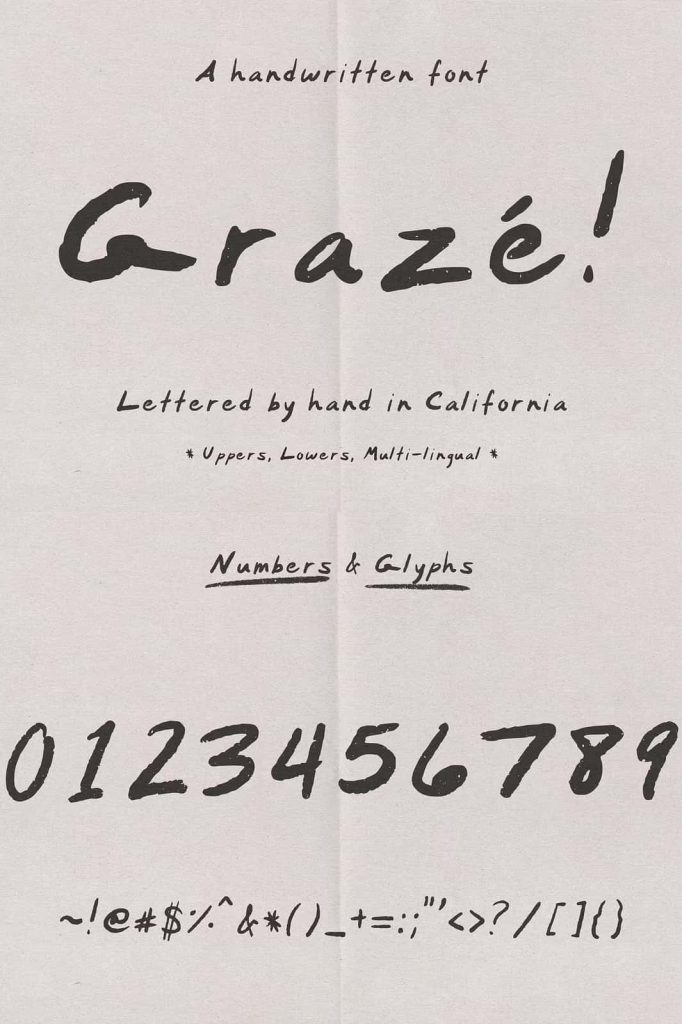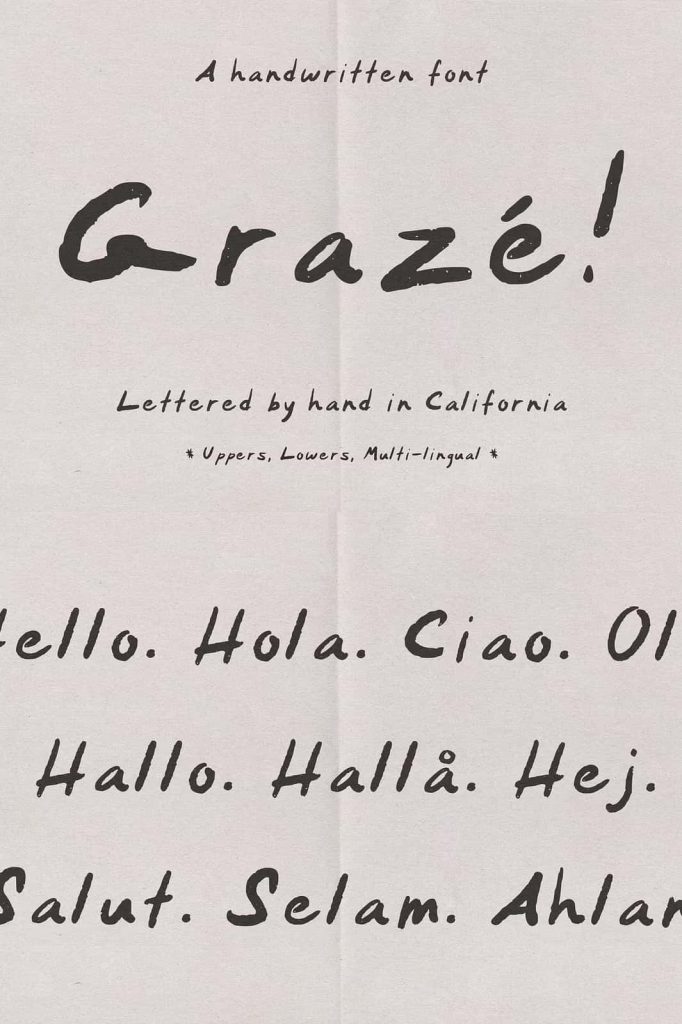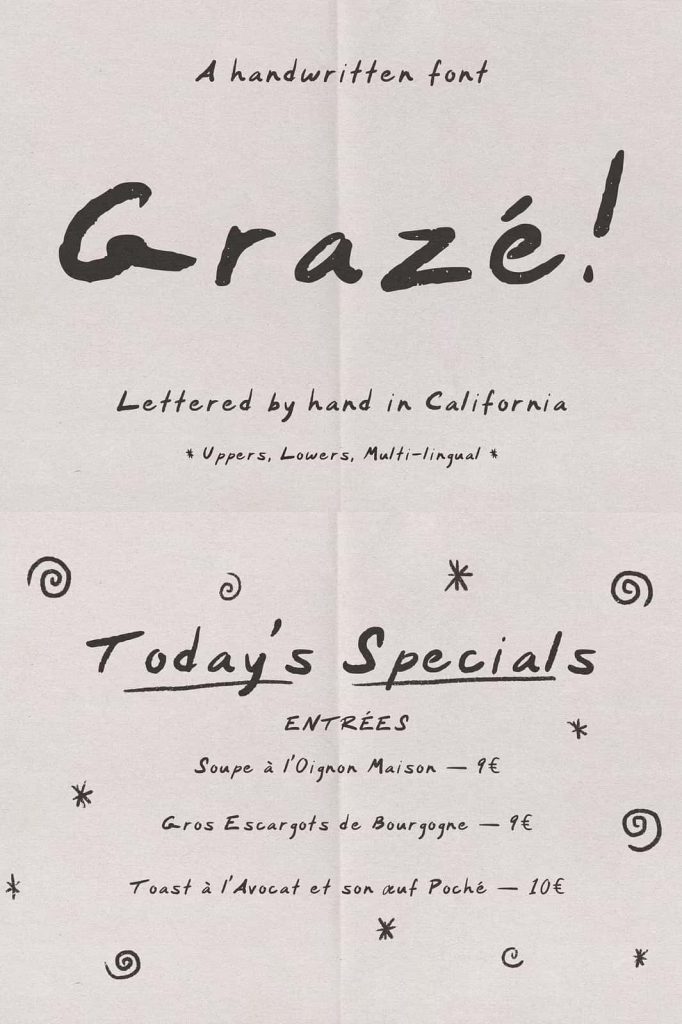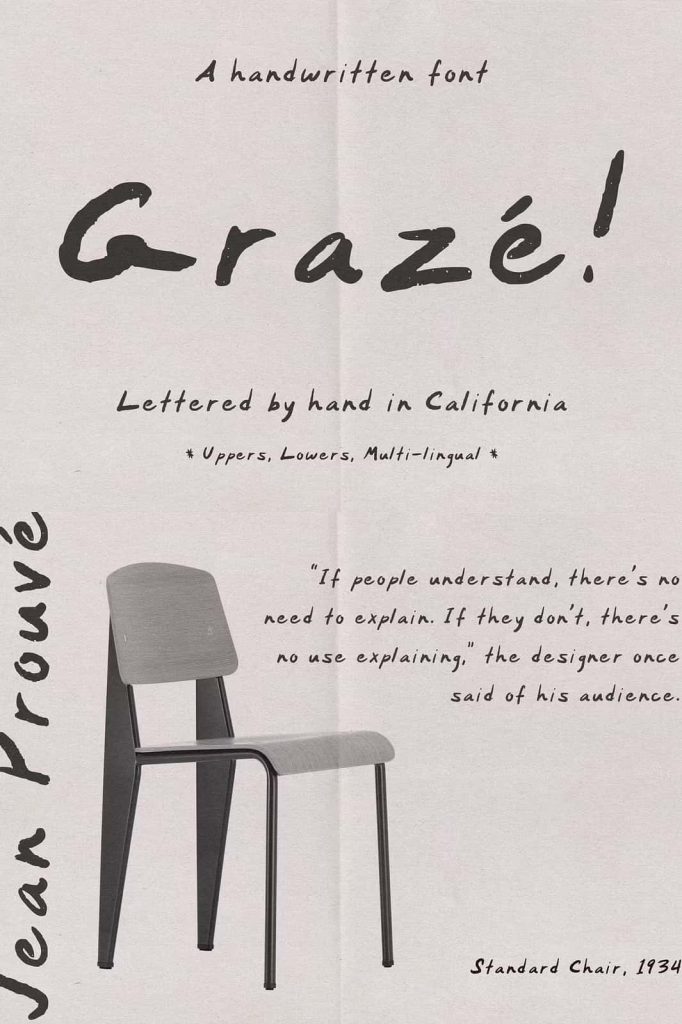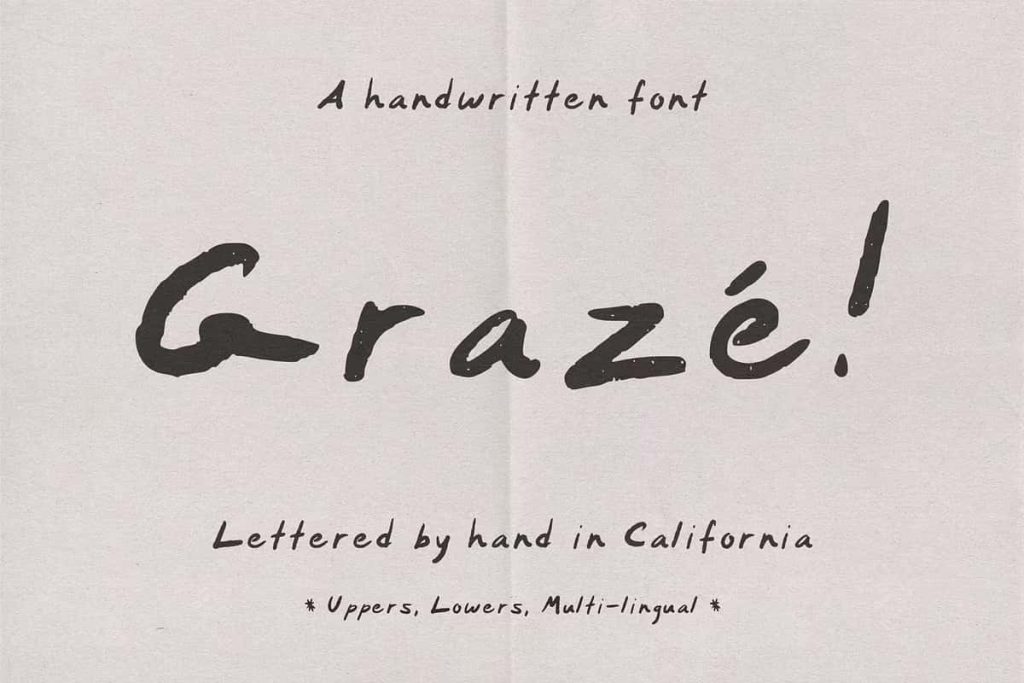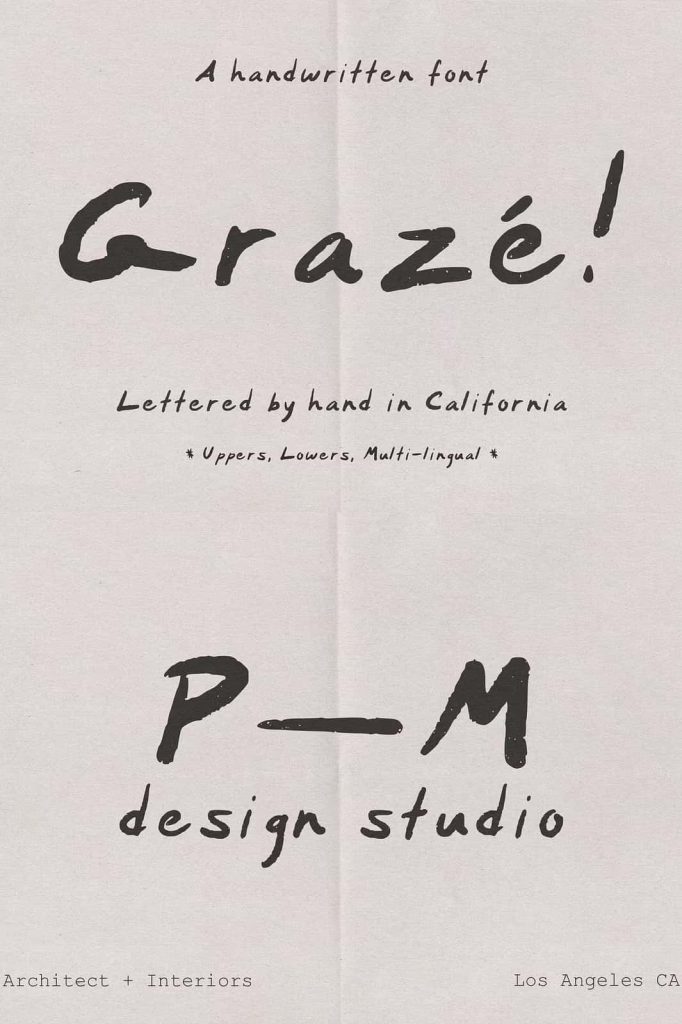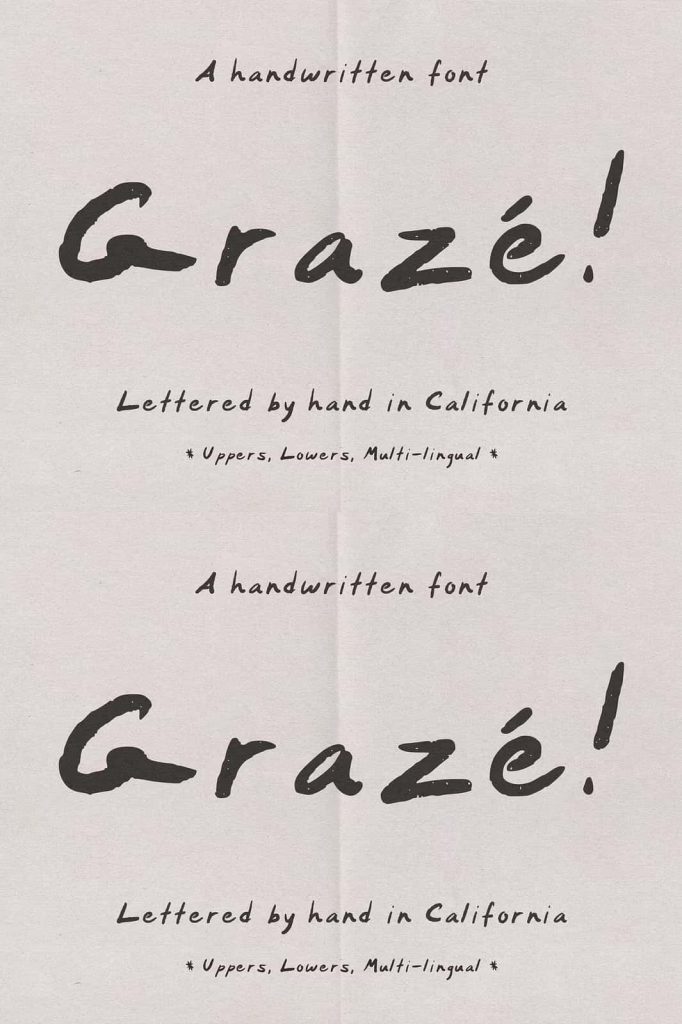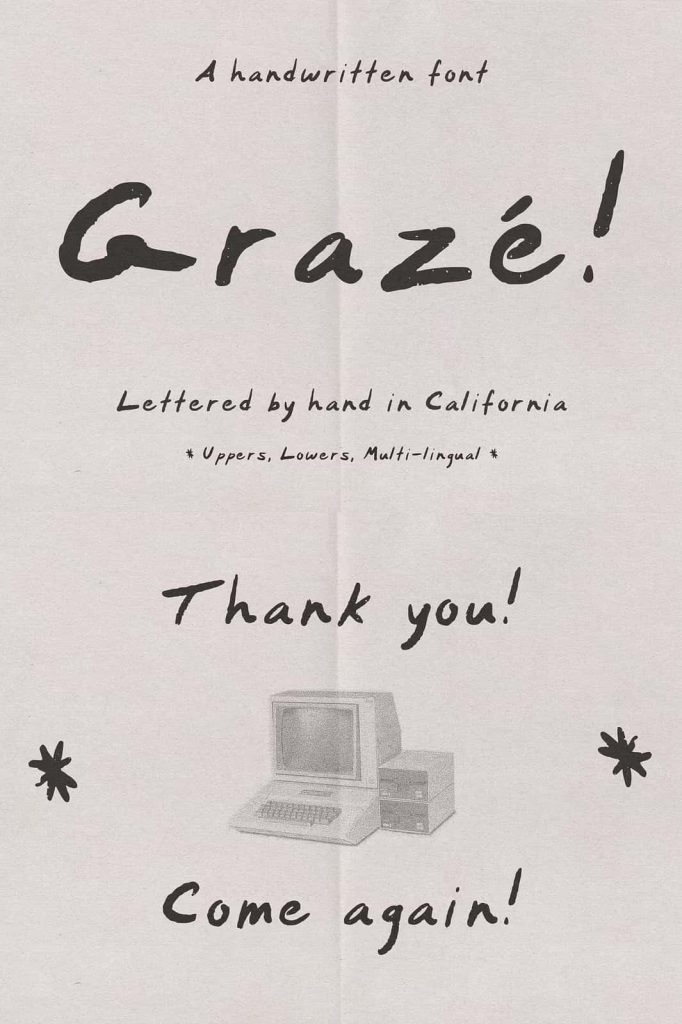
Graze: A Laid-Back Handwritten Font with Subtle Texture and Personality
Graze is a fully functional handwritten font designed to bring an effortless and natural feel to modern design projects. Although the name Graze may sound Italian or French, it is a completely original, invented word created to reflect the font’s relaxed and approachable character. This sense of originality mirrors the typeface itself, which avoids rigid structure and instead embraces a smooth, casual rhythm that feels authentic and human.
Graze is not a decorative novelty font. It is a practical and versatile handwriting typeface built for real-world use. Its letterforms maintain consistency and clarity while introducing just enough variation to create visual interest. This balance allows designers to add texture and personality without overwhelming the overall layout.
A Handwritten Style Designed for Natural Expression
The defining strength of Graze lies in its laid-back handwritten style. Each character reflects the natural flow of writing, with smooth strokes and organic spacing that feel effortless. The font captures the look of handwriting without appearing rushed or messy, making it suitable for both casual and professional design contexts.
Rather than forcing dramatic flourishes, Graze relies on subtle details to create charm. These details introduce warmth and authenticity, helping designs feel more personal and approachable. This quality makes Graze especially effective when a project needs to communicate sincerity and ease.
Subtle Texture That Enhances Design
Graze adds a gentle layer of texture to typography, enriching designs without distracting from the message. This subtle texture gives text a handcrafted quality that softens rigid layouts and brings balance to clean, modern compositions. It works particularly well alongside minimal design systems that benefit from a human touch.
Because the texture remains understated, Graze integrates smoothly with other fonts and visual elements. Designers can use it as a primary typeface or as a supporting accent without compromising readability or visual harmony.
Clear Letterforms with Practical Functionality
While Graze embraces a relaxed handwritten appearance, it remains fully functional and easy to read. Each letterform is designed with clear shapes and consistent proportions, ensuring legibility across different sizes and formats. This practicality allows the font to perform reliably in both print and digital environments.
The spacing and rhythm of the font support comfortable reading, making it suitable for short phrases, brand names, and supporting text. Graze proves that a handwriting font can be expressive without sacrificing usability.
A Unique Name with a Distinct Identity
The name Graze plays an important role in shaping the font’s identity. While it may suggest European influence, it remains intentionally undefined, just like the typeface itself. This openness allows designers to interpret and apply the font freely, without being limited by cultural or stylistic expectations.
This sense of creative freedom aligns with Graze’s visual language, encouraging designers to explore diverse applications and styles.
Ideal for Branding and Logo Design
Graze performs exceptionally well in branding and logo design, where personality and authenticity are essential. Its handwritten character helps brands feel approachable and genuine, making it ideal for small businesses, creative studios, lifestyle brands, and personal projects.
In logo design, Graze adds a distinctive signature-like quality that helps brands stand out. The font communicates confidence without formality, creating identities that feel modern, friendly, and trustworthy.
Perfect for Stationery and Creative Applications
Graze is a natural fit for stationery design, including business cards, letterheads, envelopes, and personal notes. Its relaxed style brings warmth to printed materials, encouraging connection and engagement. When used in invitations or promotional materials, the font enhances the overall tone with subtle charm.
Beyond stationery, Graze works well in packaging, social media graphics, web layouts, and editorial accents. Its versatility allows it to adapt to different creative needs while maintaining a consistent and recognizable personality.
A Handwritten Font That Balances Ease and Authenticity
Graze is designed for designers who value simplicity, authenticity, and flexibility. Its laid-back handwritten style, subtle texture, and practical functionality make it a dependable choice for a wide range of creative projects.
For anyone seeking a handwriting font that feels natural, refined, and genuinely expressive, Graze offers a balanced solution that enhances design without overpowering it.